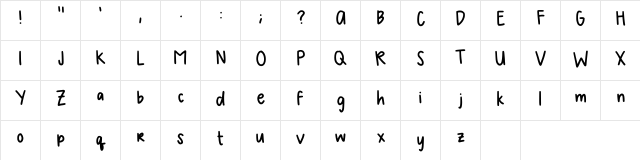
Mel Handwriting 2 Regular
Design Context for Mel Handwriting 2 Typeface
Mel Handwriting 2 flows with the natural rhythm of handwritten lettering, making it ideal for designs that call for warmth and personal expression.